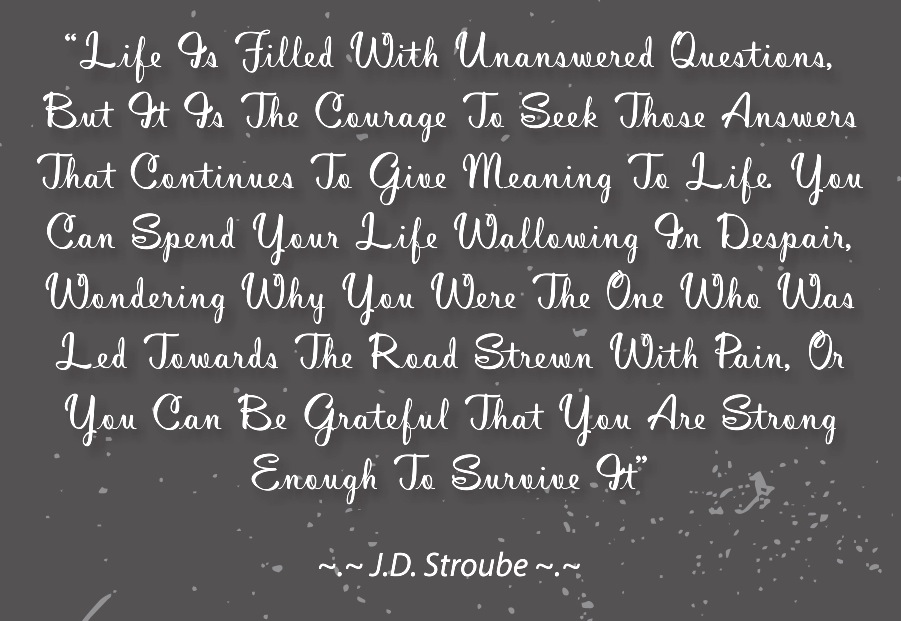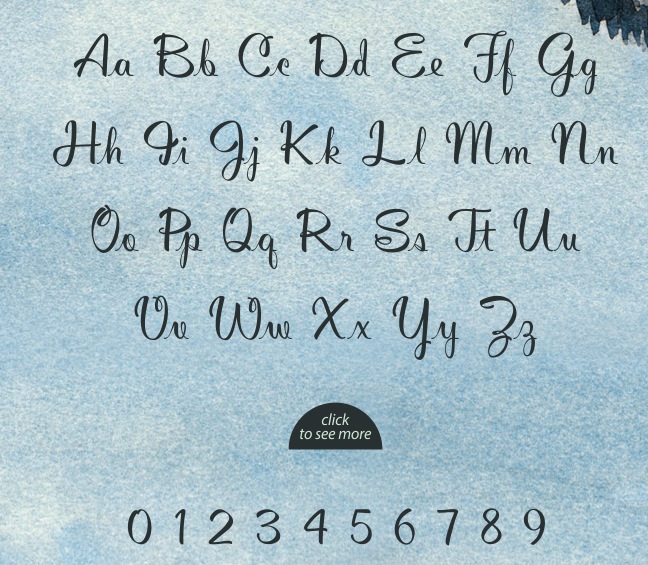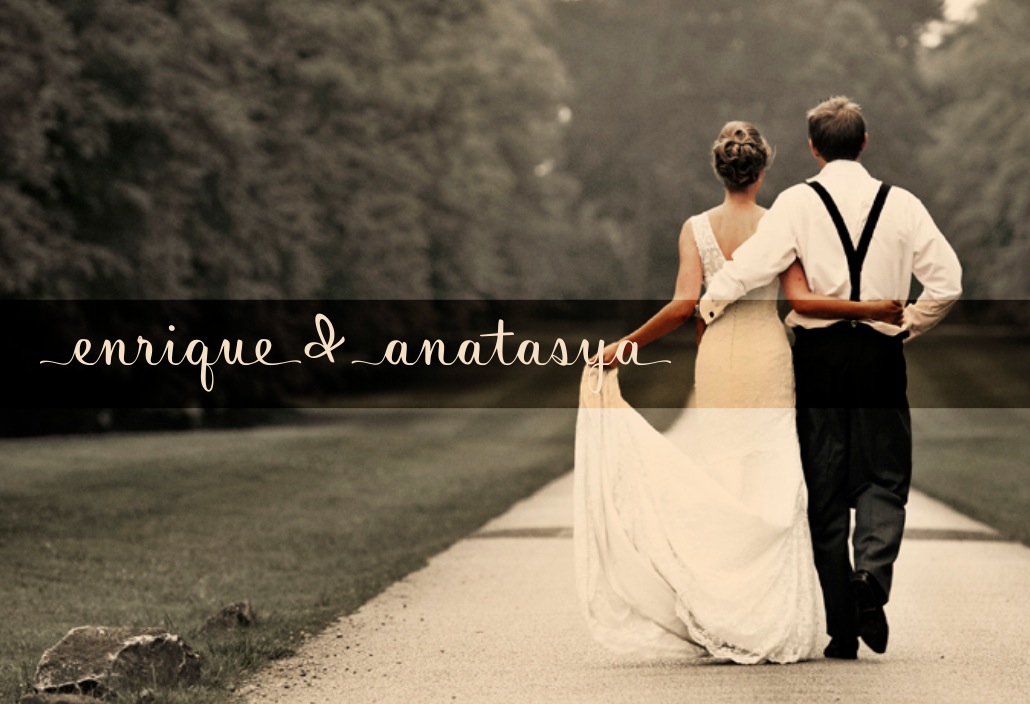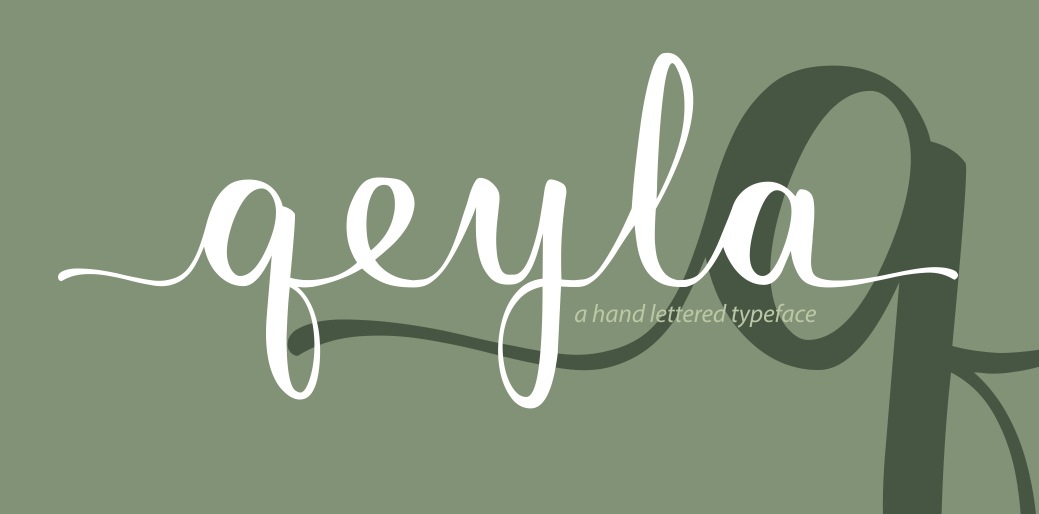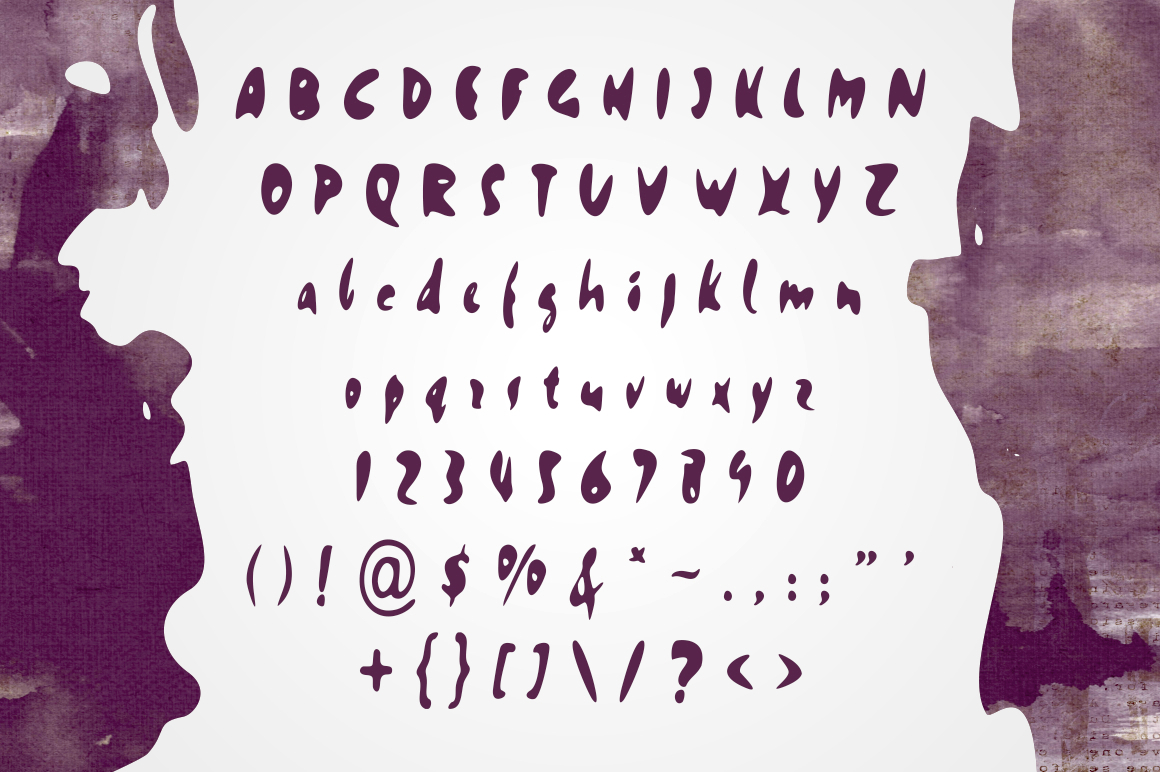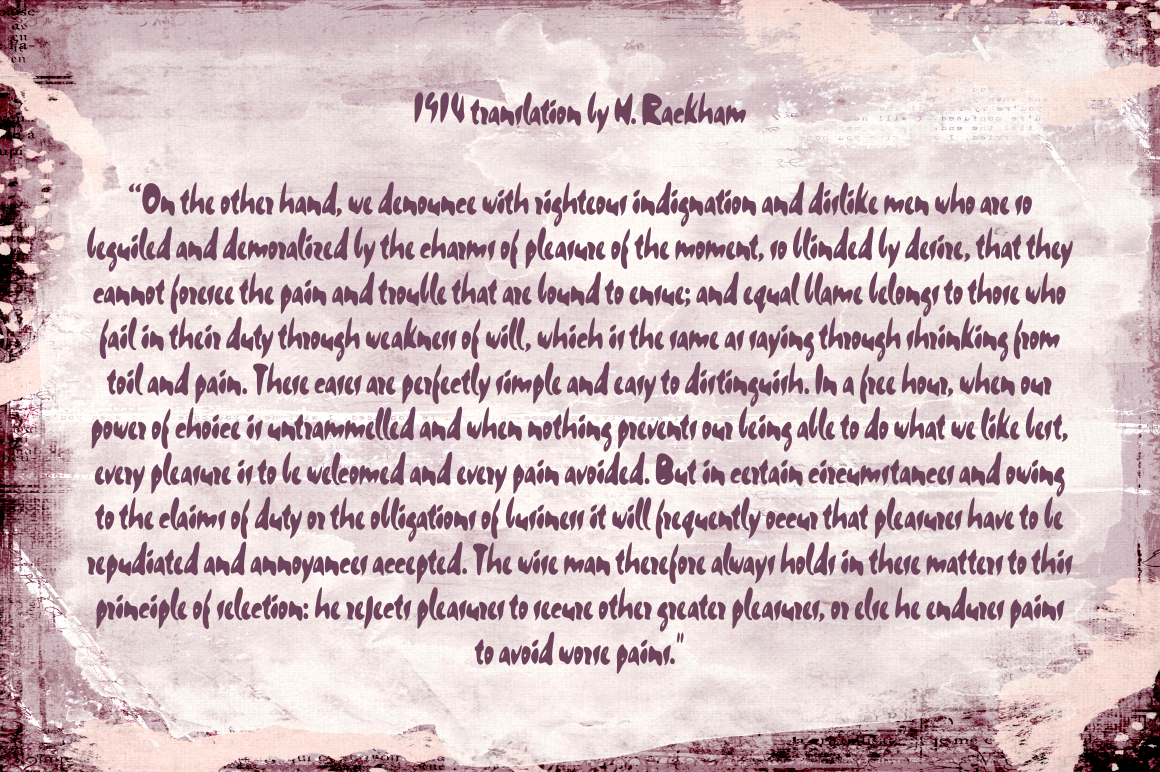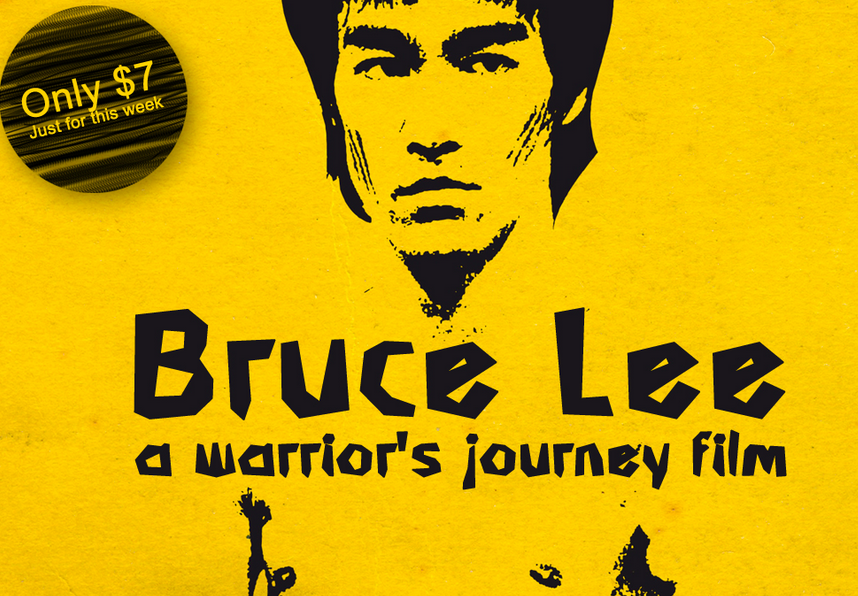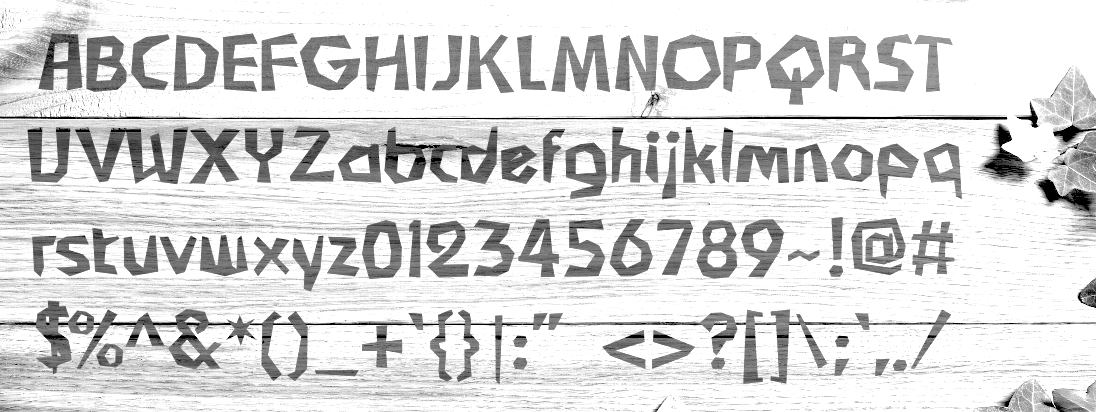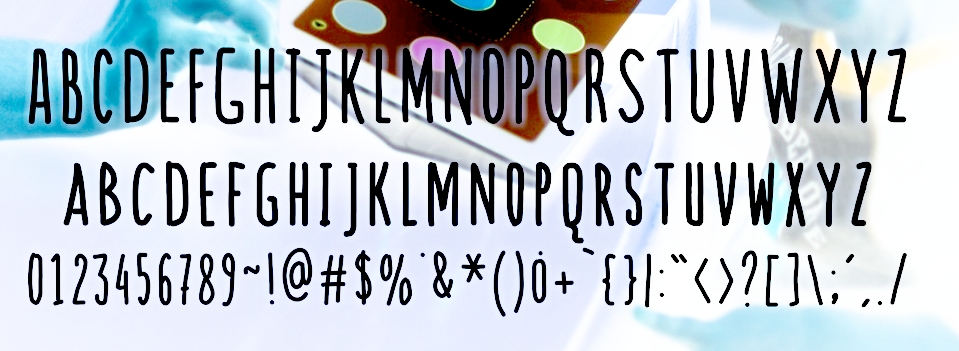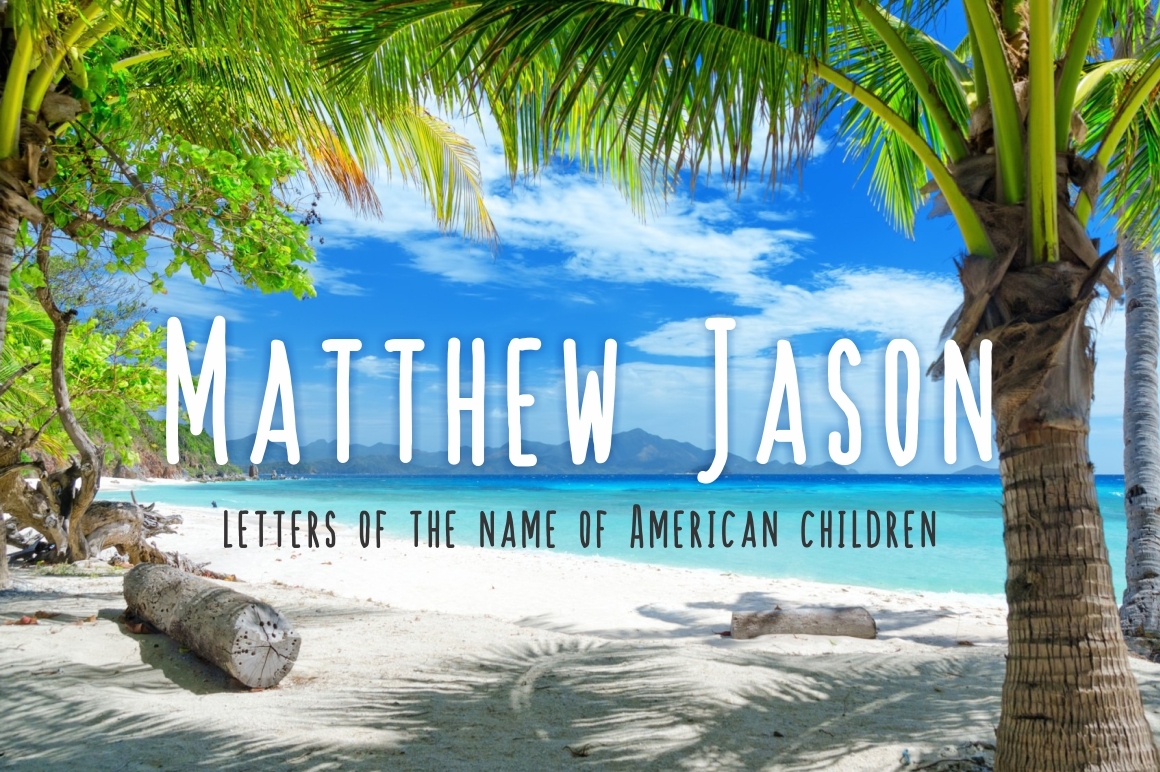
Contra Studio (was: decavantona)
Banda Aceh, Indonesia-based designer of the watercolor brush typeface Never Die (2015), the connected Awesome Darling Script (2015) and Qeyla Script (2015), the angular typeface Bruce Lee (2015) and the hand-crafted Cagok Letter (2015: angular style) and Matthew Jason Kid's (2015). They also designed Ashley Jarrow (2015) and Boboiboy Hand (2015). Creative Market link.